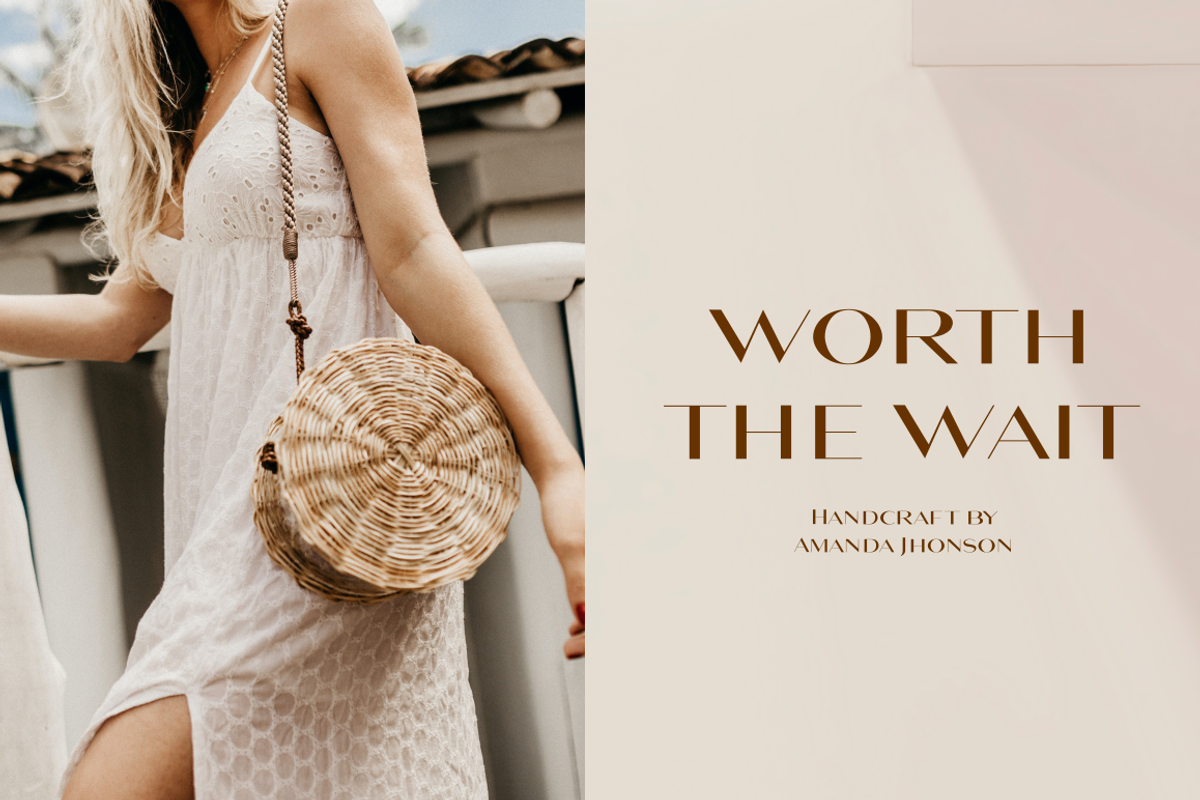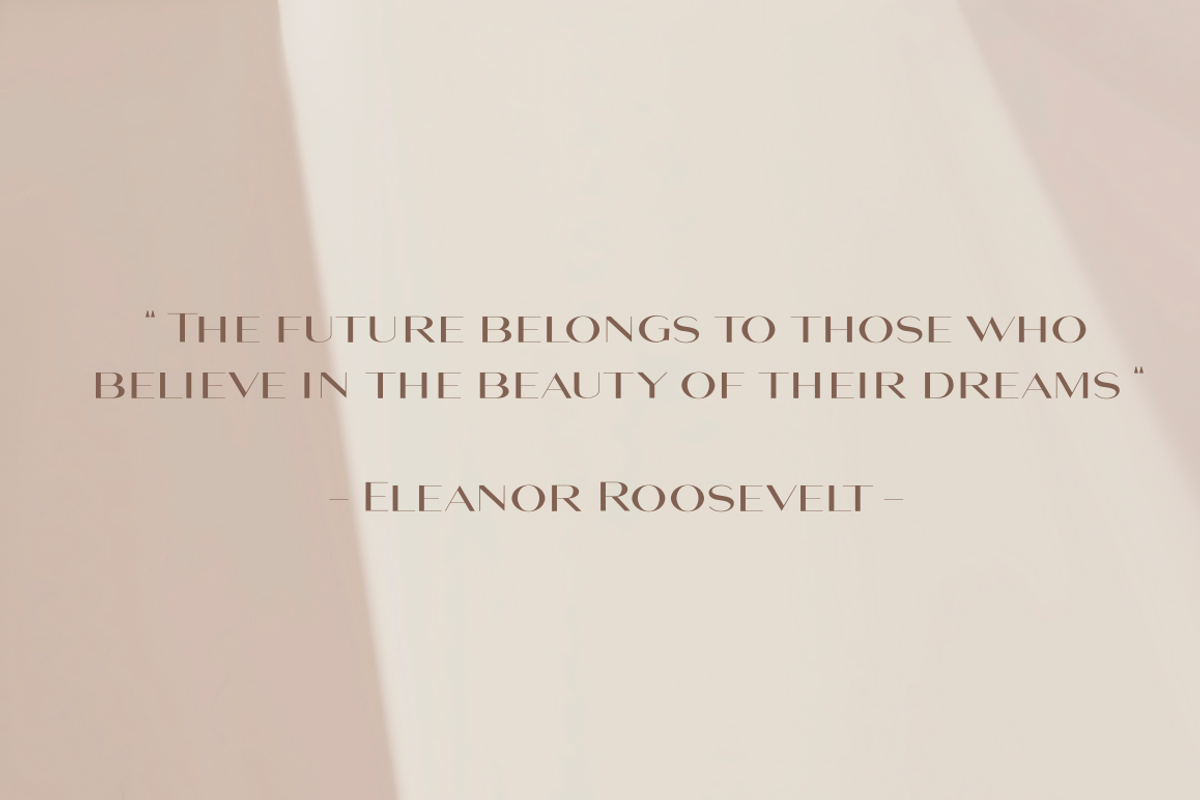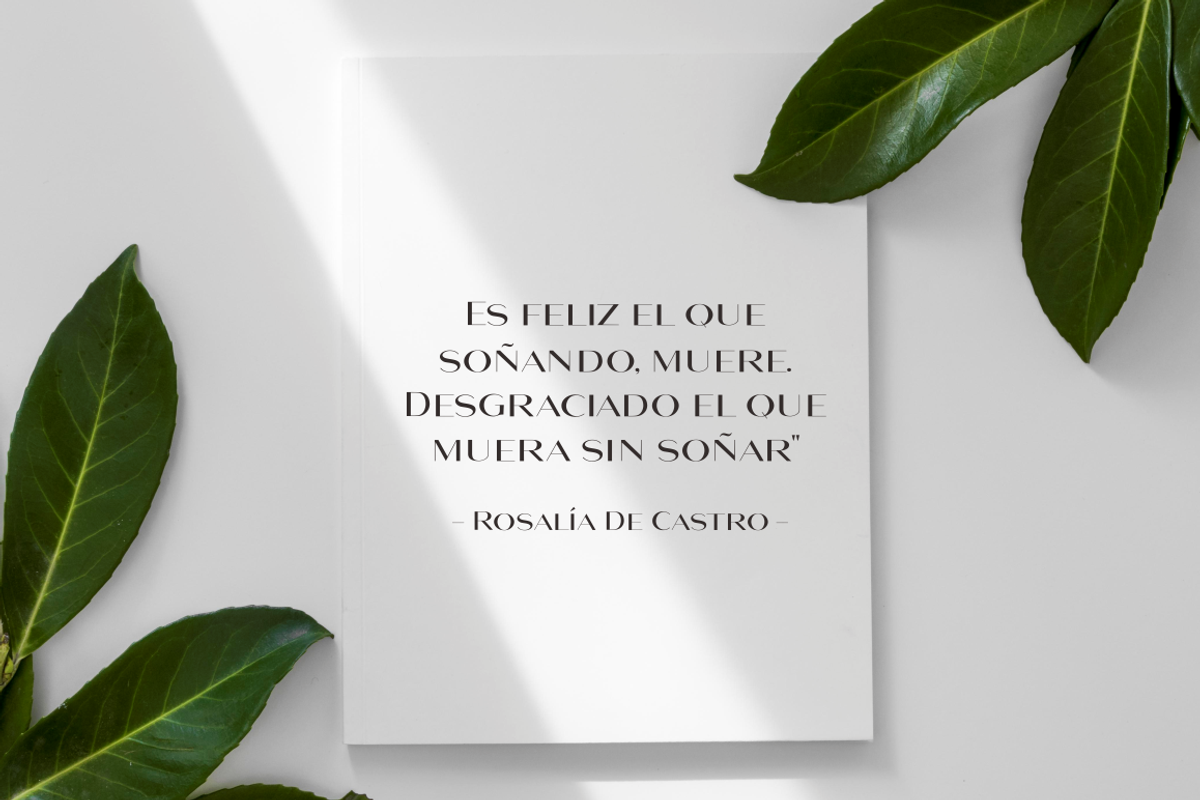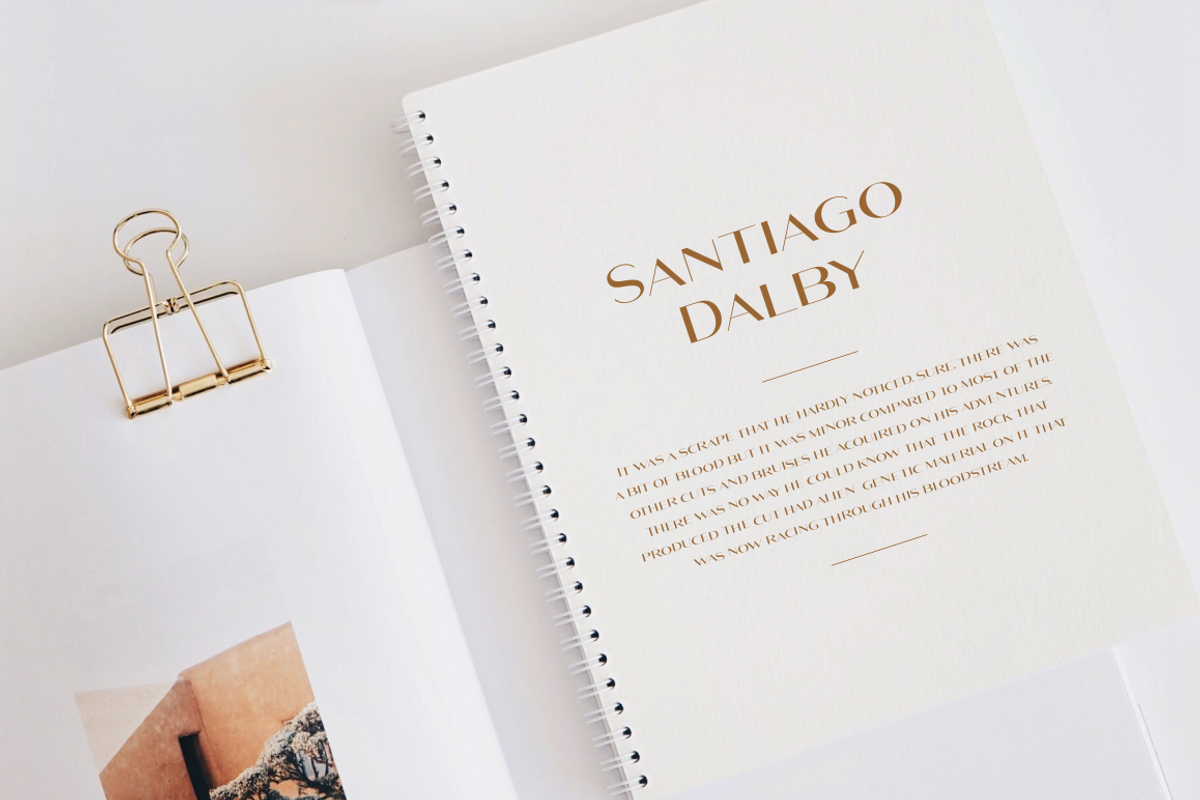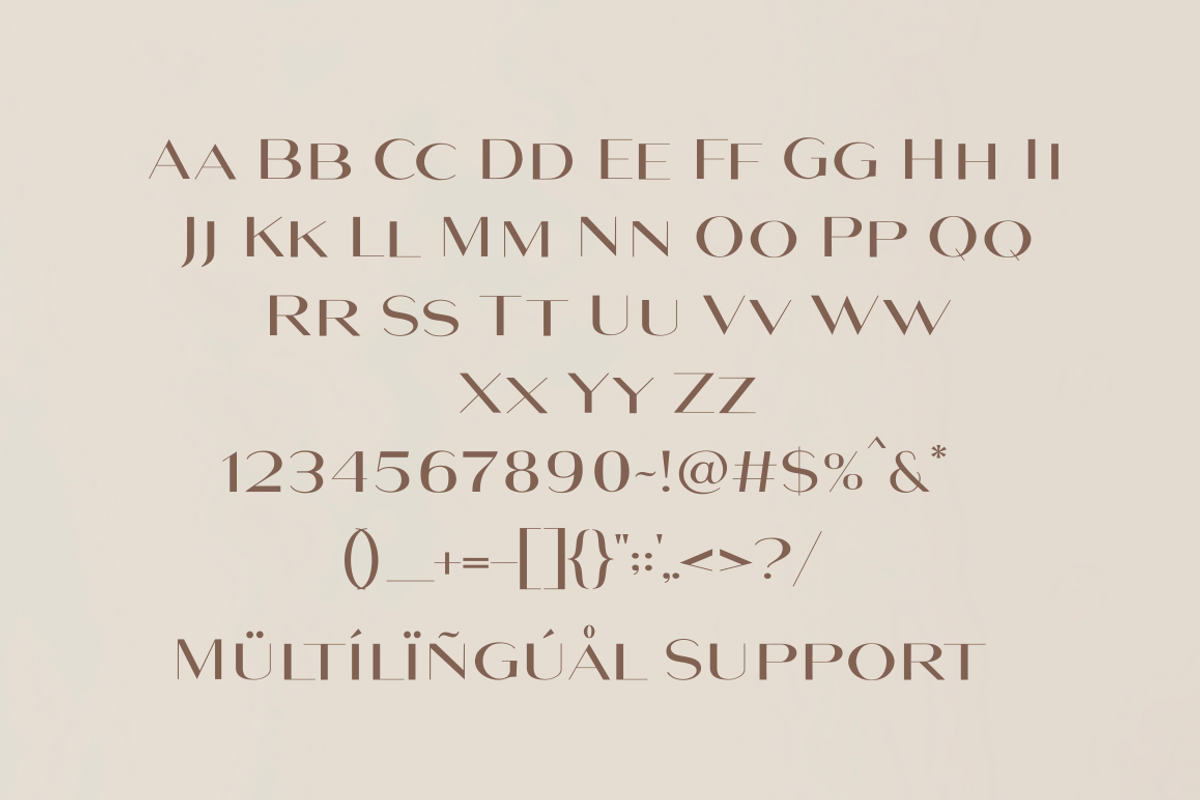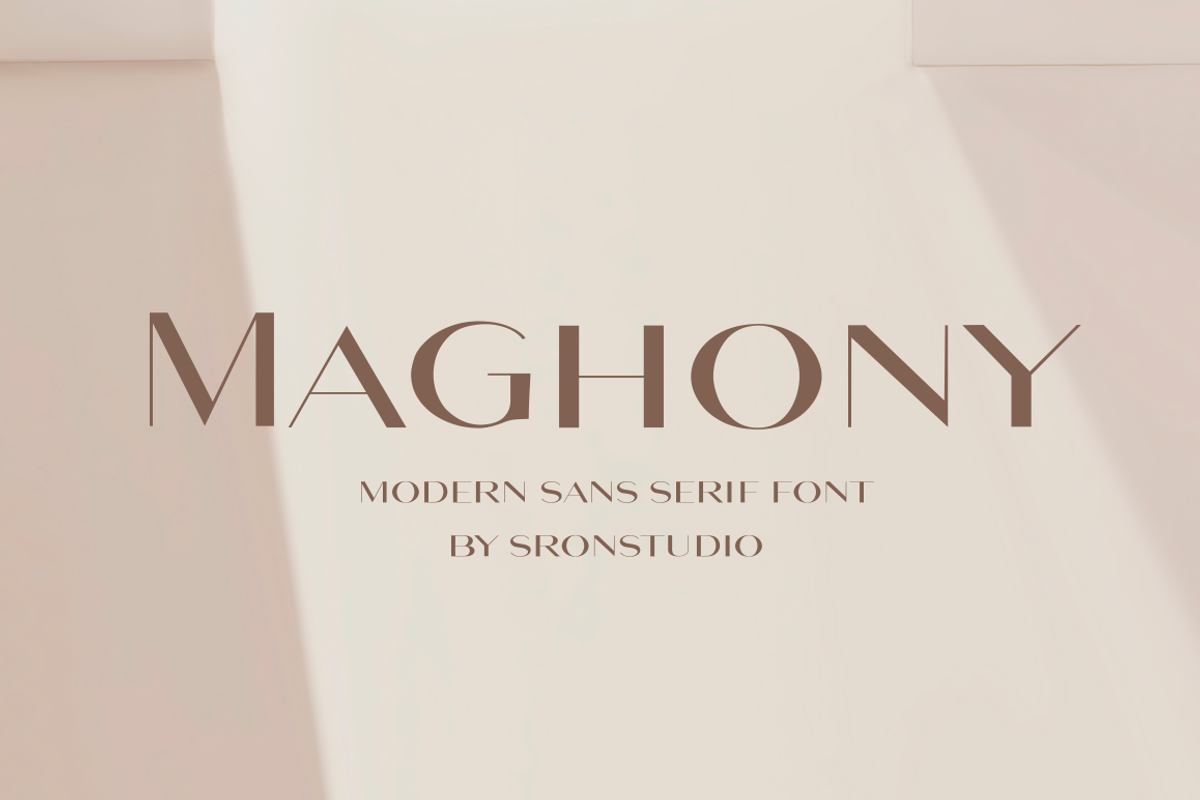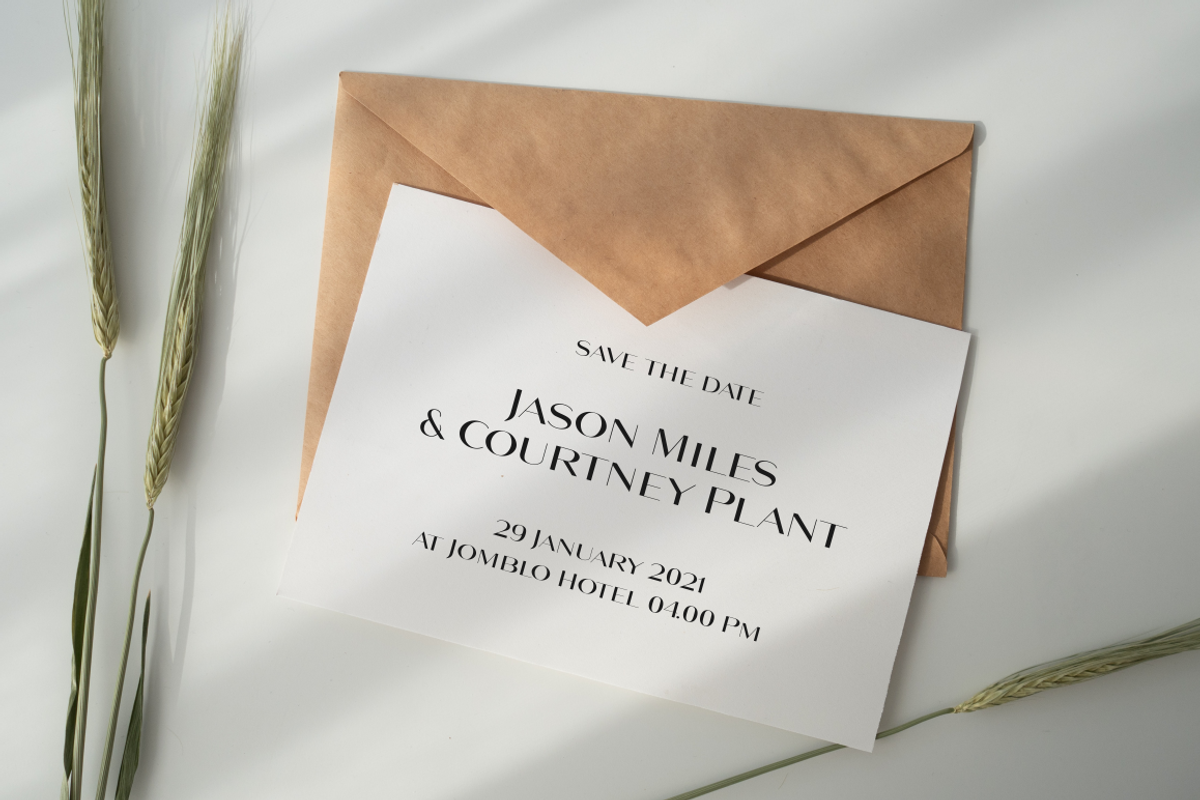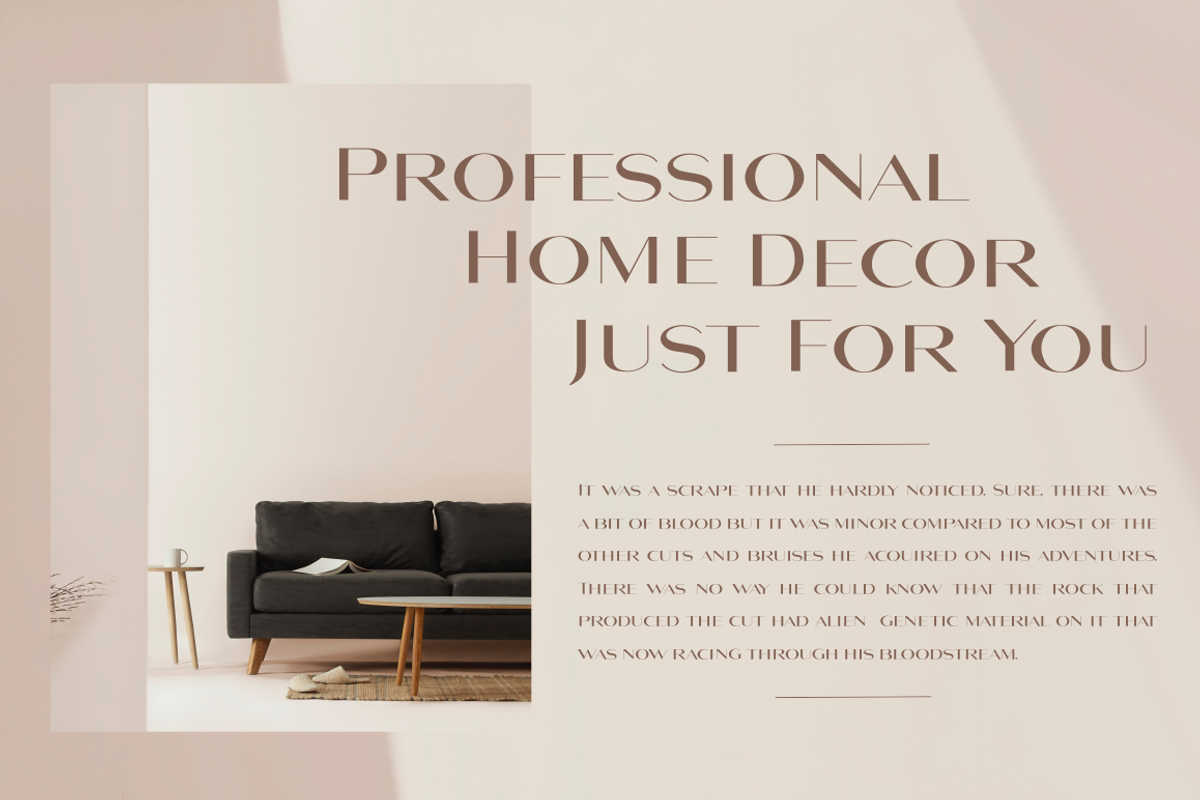
Maghony - Modern Sans Serif Font
Maghony – Modern Sans Serif Font branding, invitation, stationery, wedding designs, social media posts, advertisements, product packaging, product designs, label, photography, watermark, special events, and more.
- Uppercase and lowercase letters
- Multilingual symbols, numerals, and punctuation